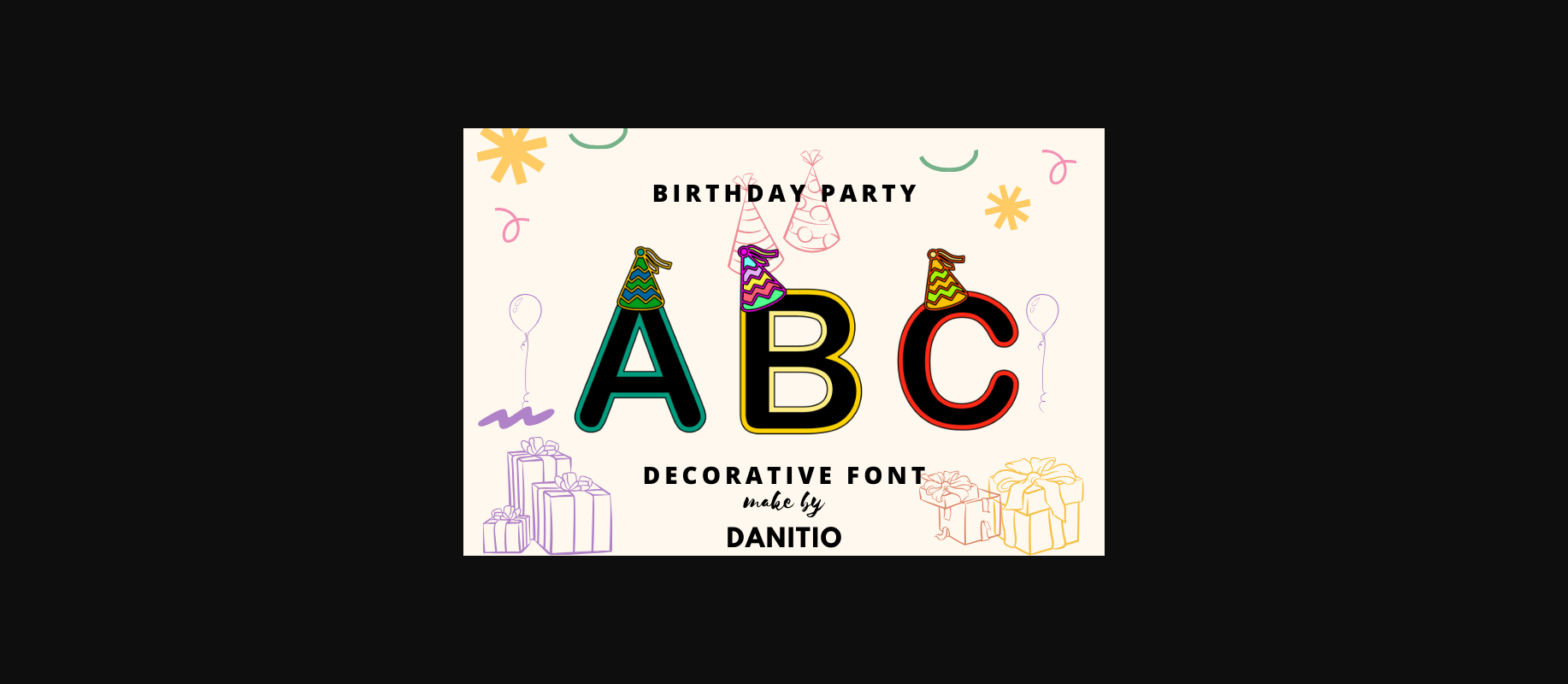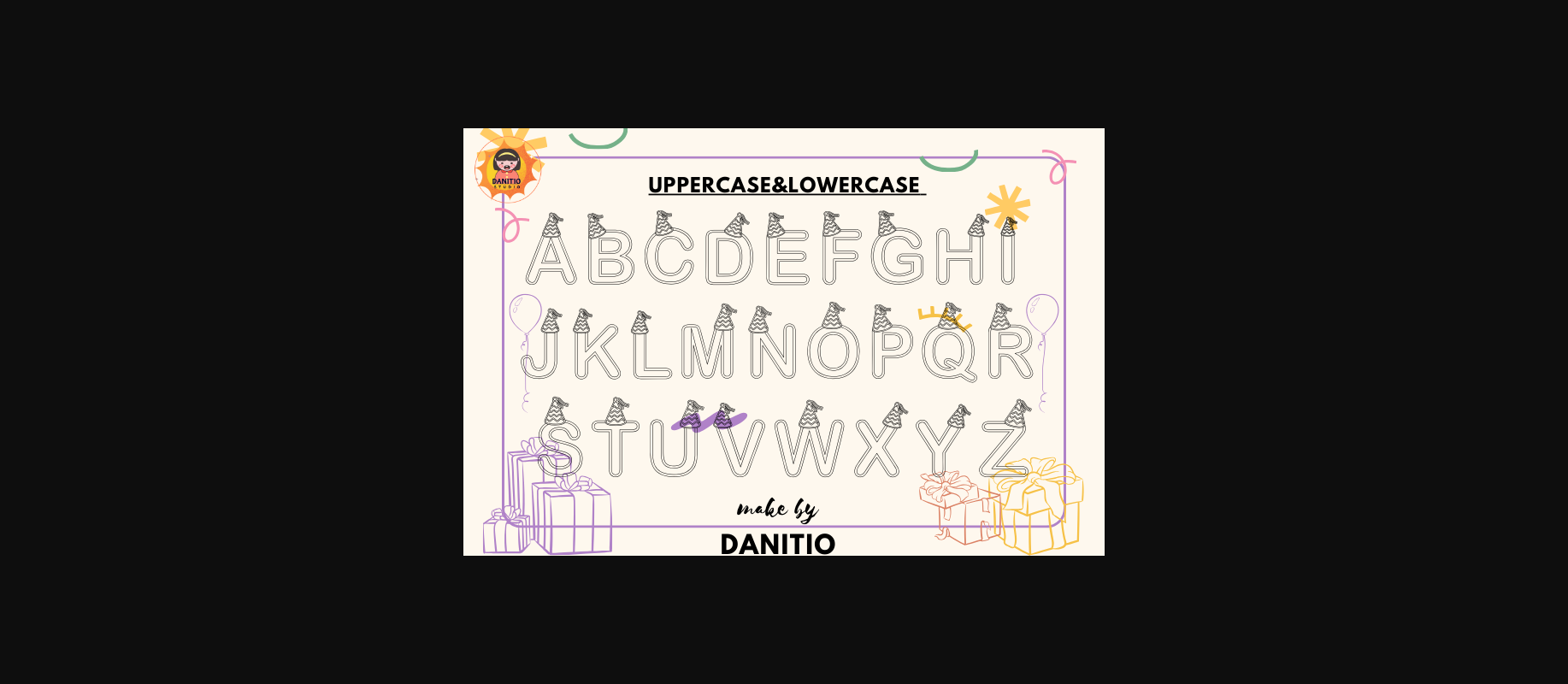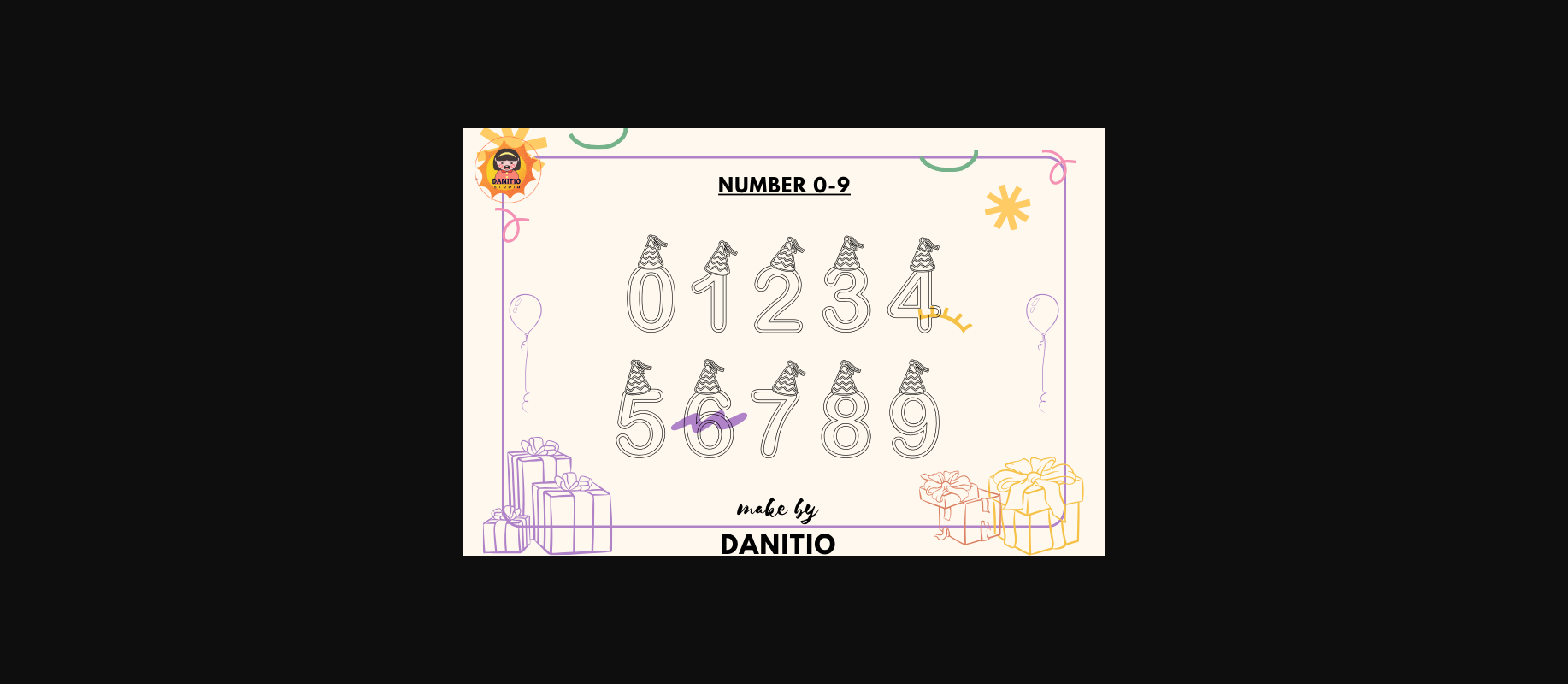
About Birthday Party Font
Birthday Party is a decorative font with letters decorated with cute party hats that you can add cuteness to. Gentle for every design Perfect for adding a fun element to invitations, birthday cards and party decorations. It will bring joy and fun wherever it is used. Hope you enjoy using my fonts.